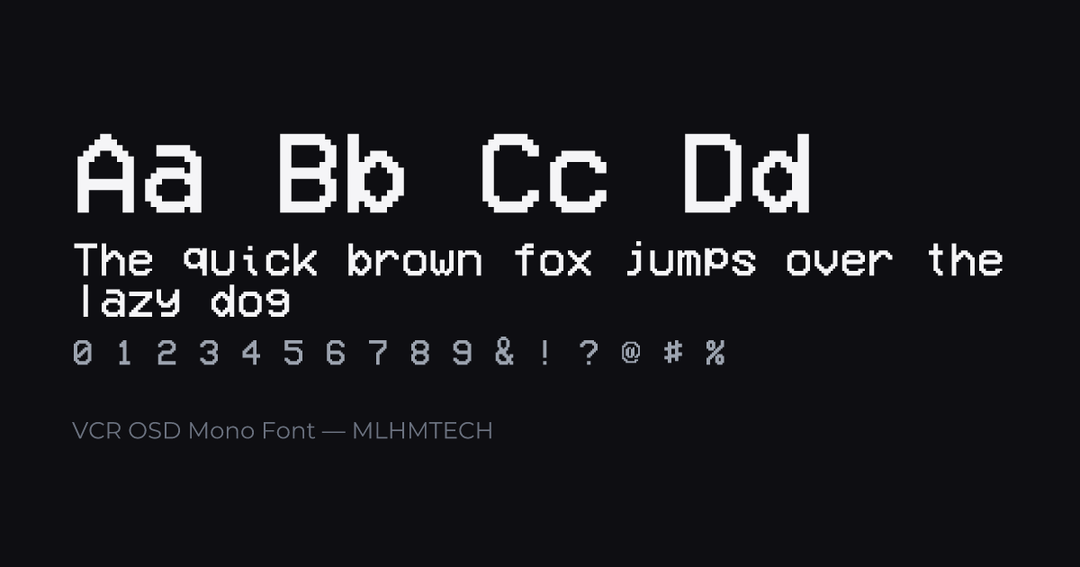
VCR OSD Mono Font
VCR OSD Mono is a monospaced font that mimics the on-screen display of vintage VCRs and CRT monitors. Ideal for adding a retro tech vibe to your video projects.
VCR OSD Mono is a faithful recreation of the classic monospaced typeface used in VCR on-screen displays and early digital equipment. Its clean, blocky characters evoke nostalgia for the 80s and 90s, making it a go-to choice for retro-themed videos, glitch effects, and tech-inspired designs.
This font includes uppercase, lowercase, numerals, and basic punctuation, ensuring versatility for titles, lower thirds, and captions. Its monospaced nature ensures consistent spacing, which is perfect for creating a digital readout look.
Whether you're editing a VHS-style music video, a cyberpunk short film, or a retro gaming stream overlay, VCR OSD Mono adds an authentic touch that instantly transports viewers back in time.